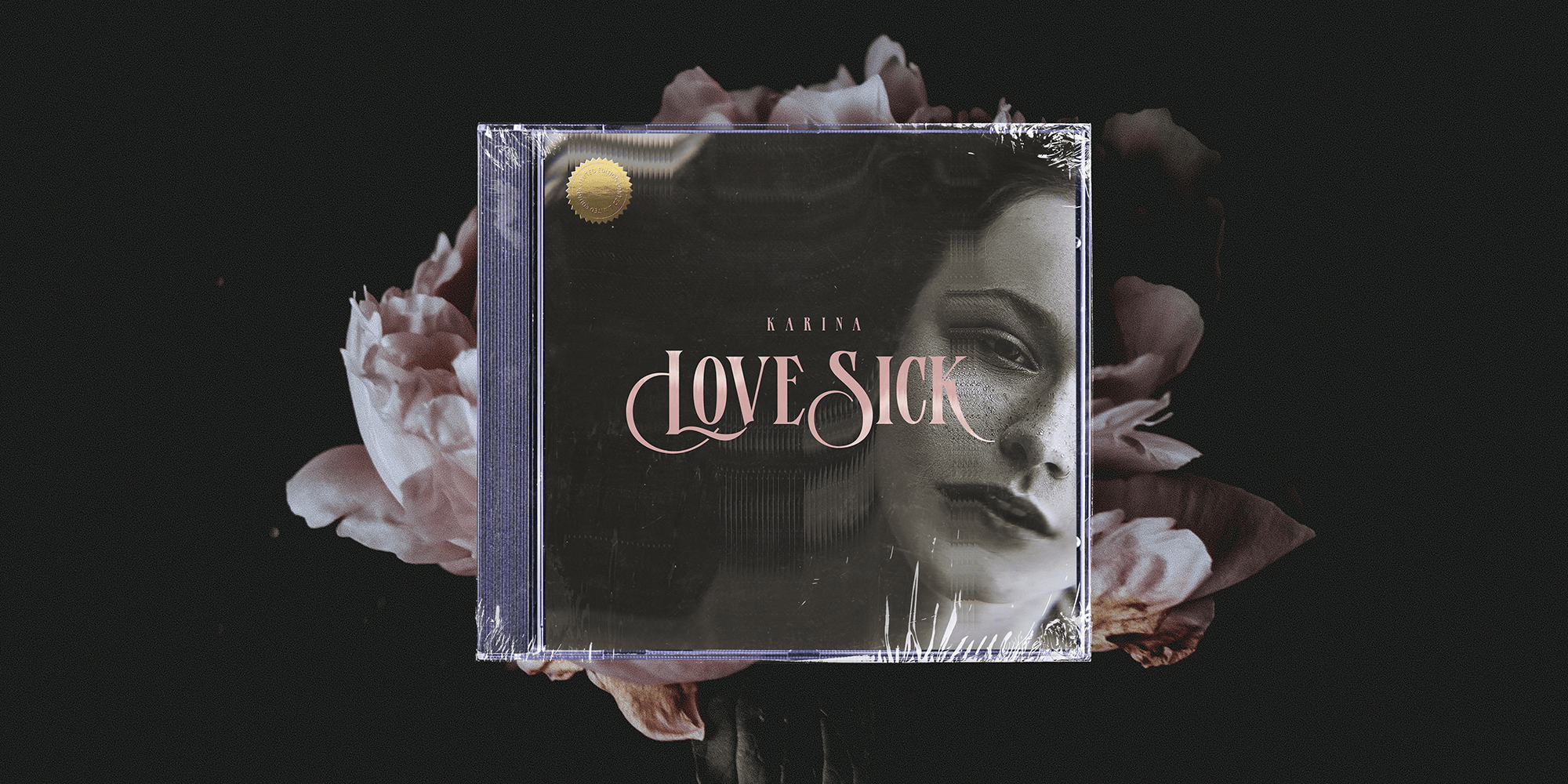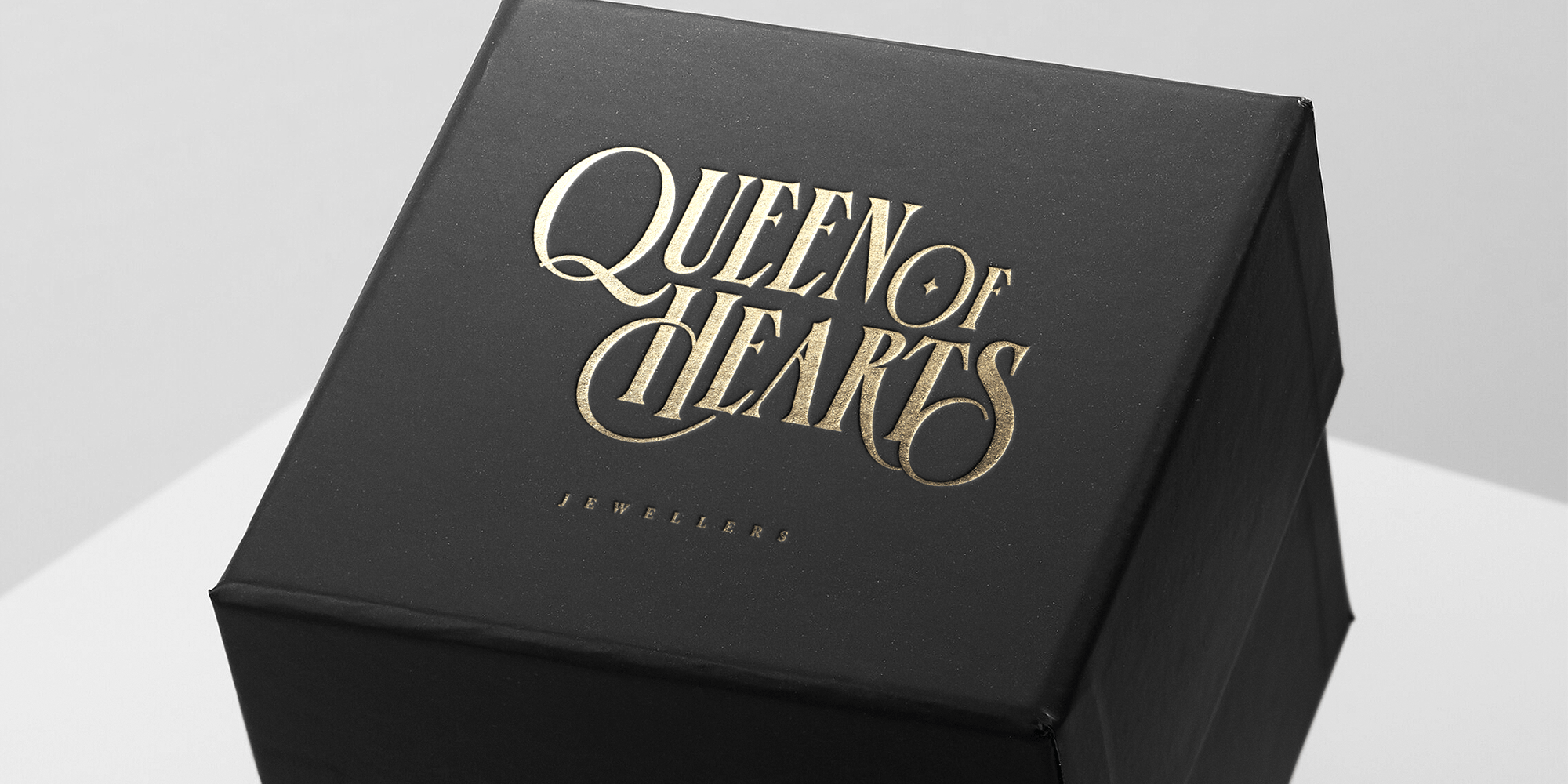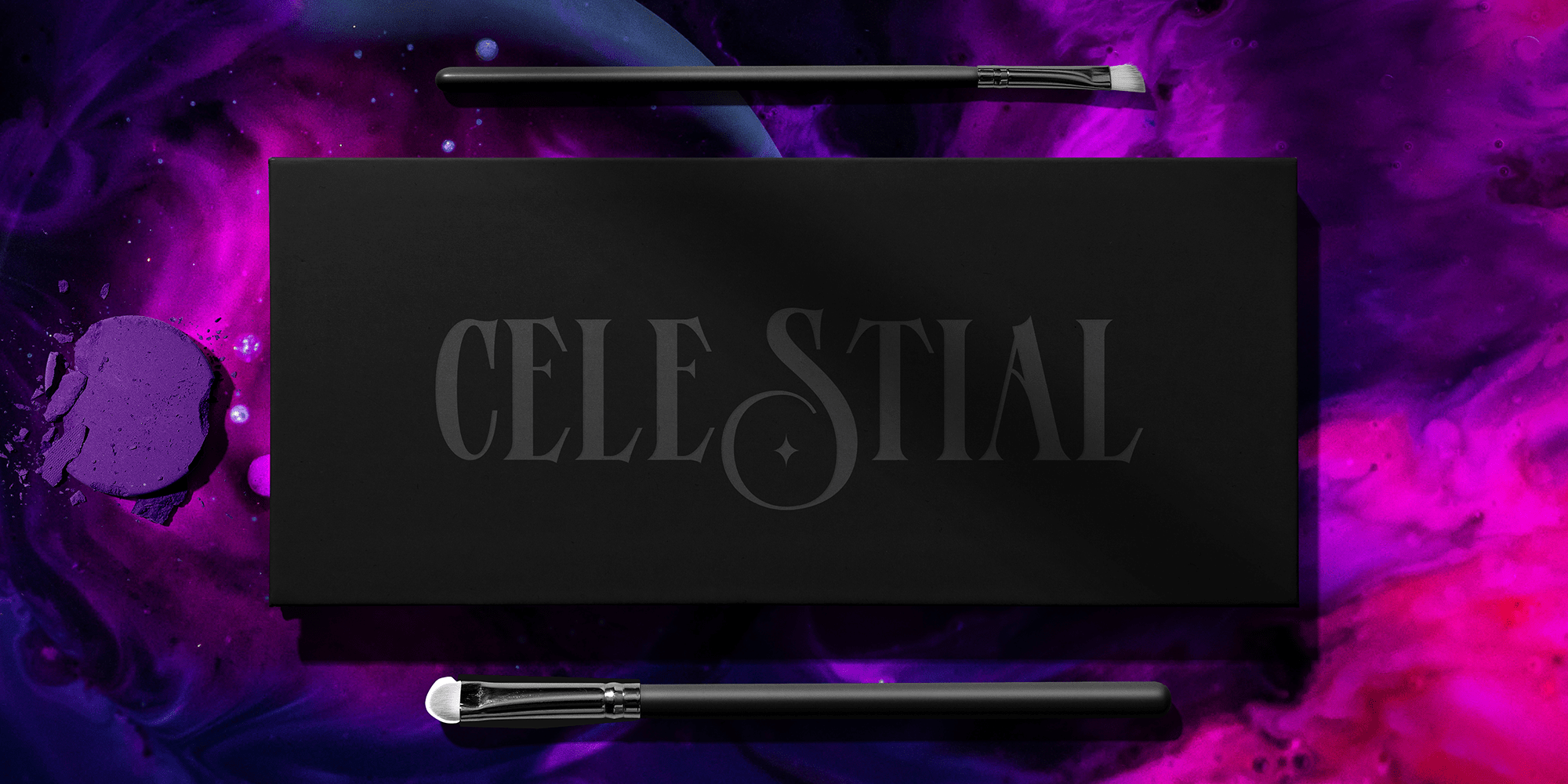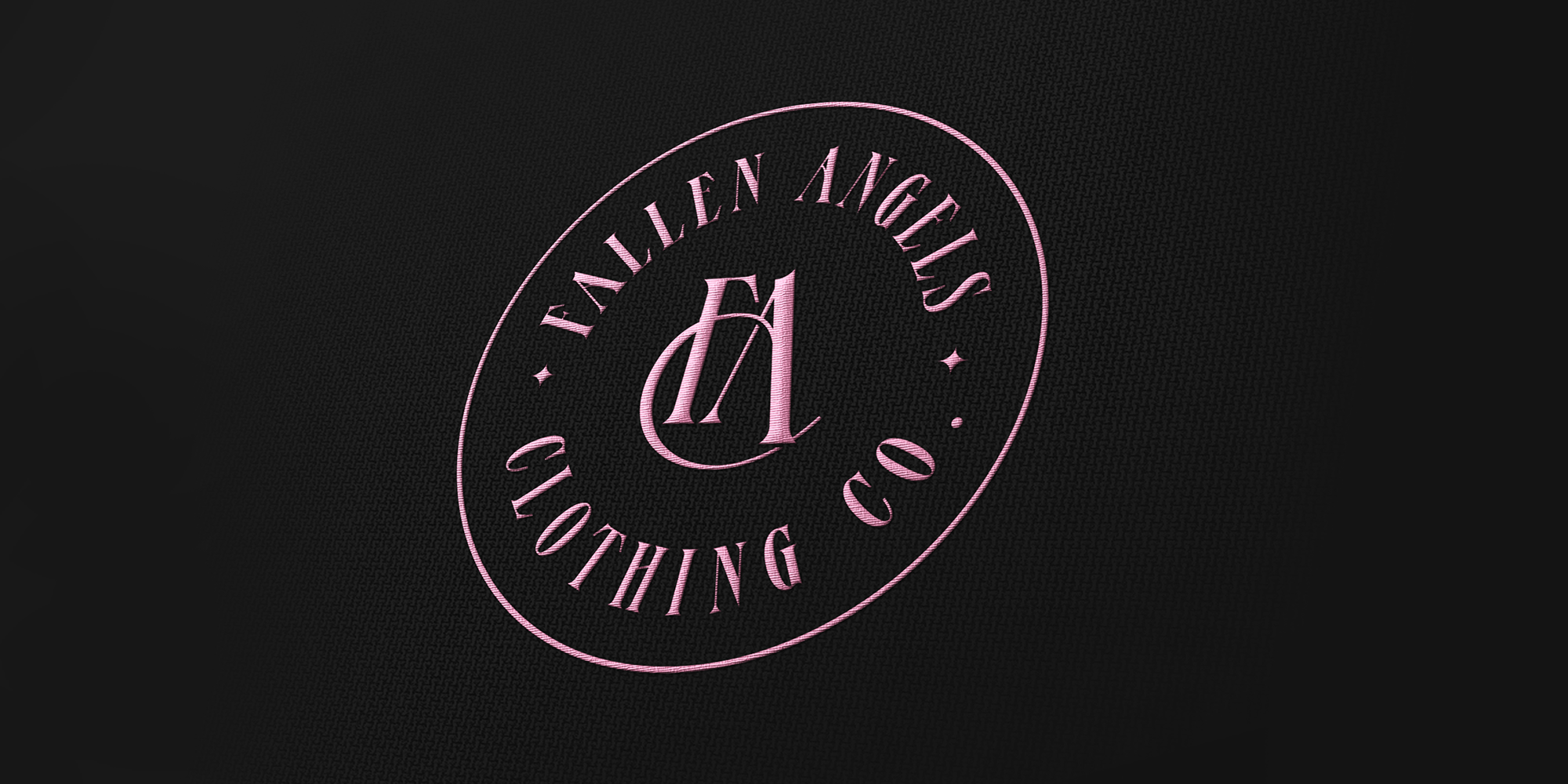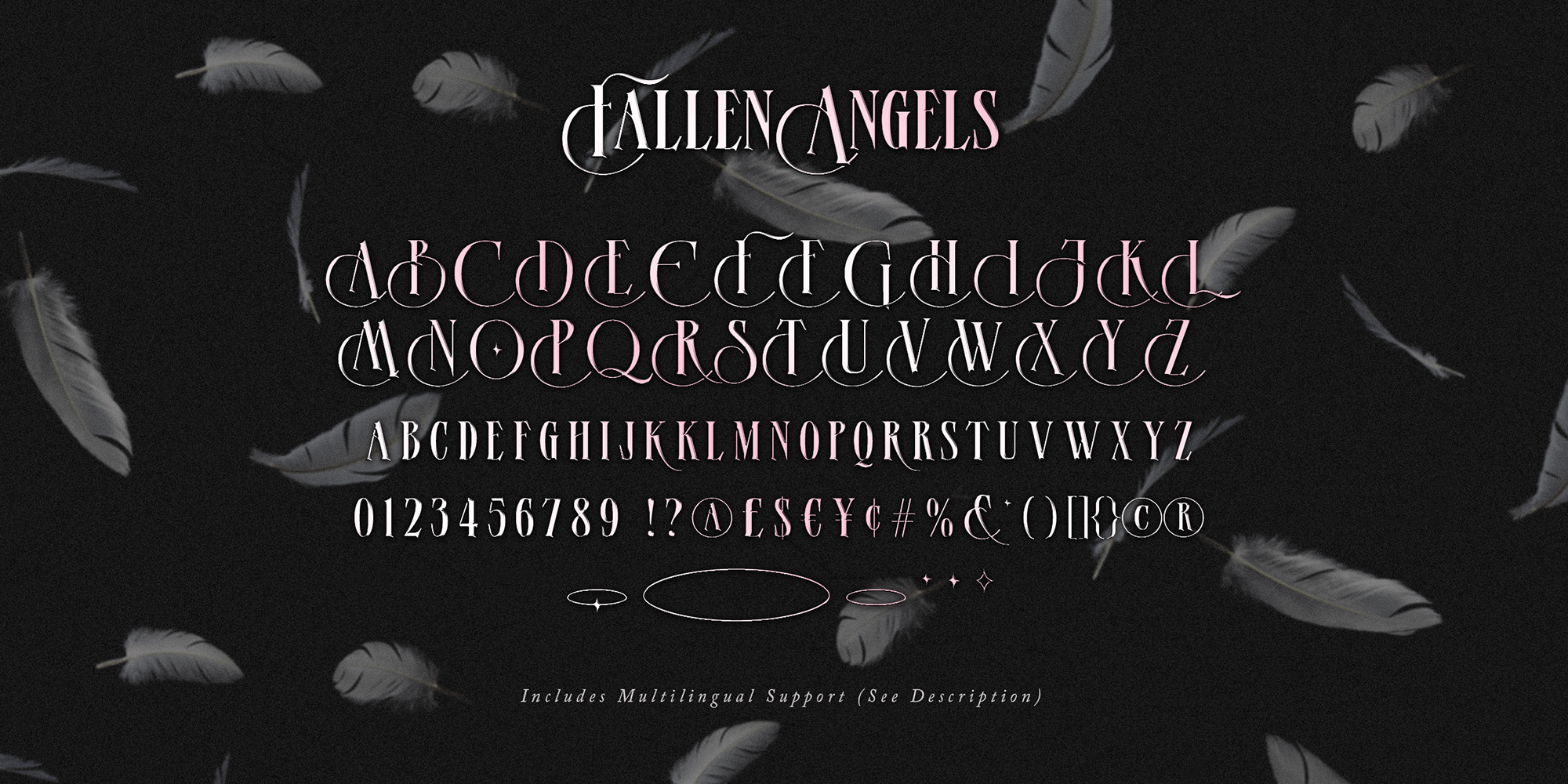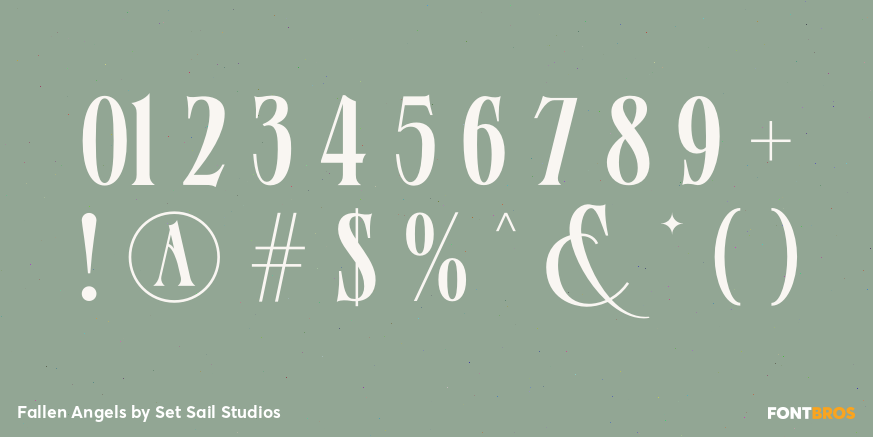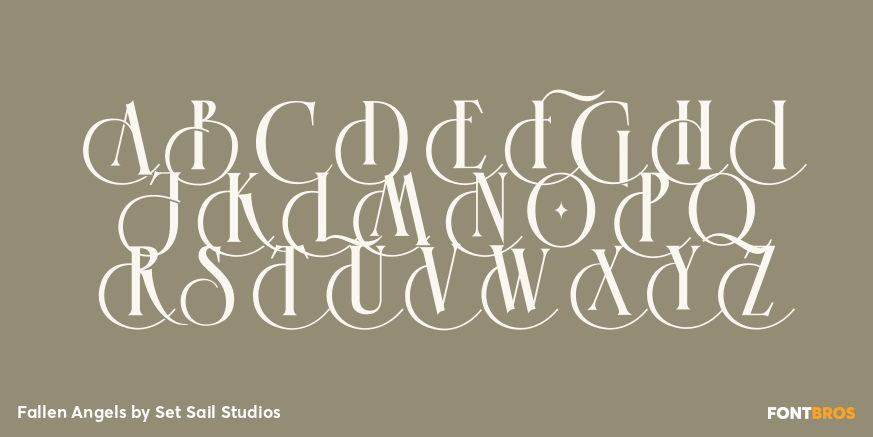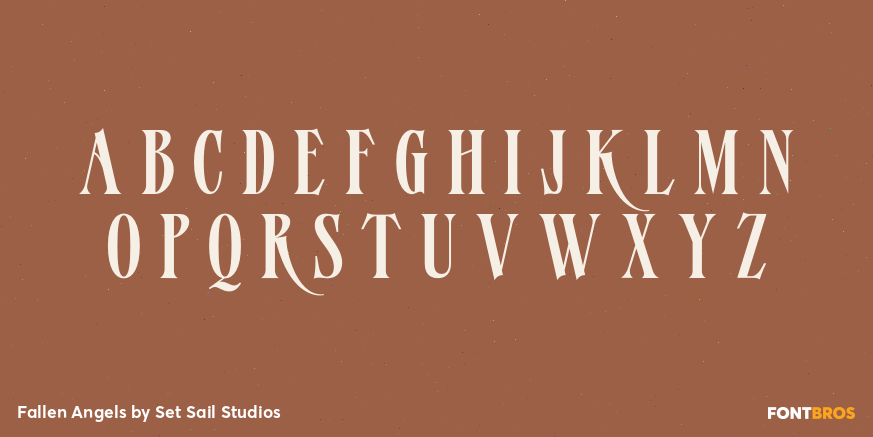
Fallen Angels
Font Family by Set Sail Studios
Fallen Angels Is a modern take on a classic serif style. The stylised capitals add romantic curves and a rebellious elegance to the strong standard character set. It's a bold choice of typography for logo designs, product packaging, album artwork, quotes, posters, apparel & more.
Accessing Extra Characters • Alternate characters are available for E, F, r & k. These can be accessed by switching on 'Stylistic Alternates' or via a Glyphs panel. 6 icons are also included within the font (3 halo's and 3 stars) which can be accessed via a Glyphs panel.